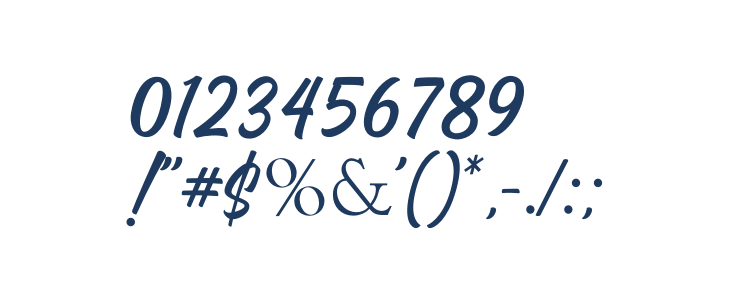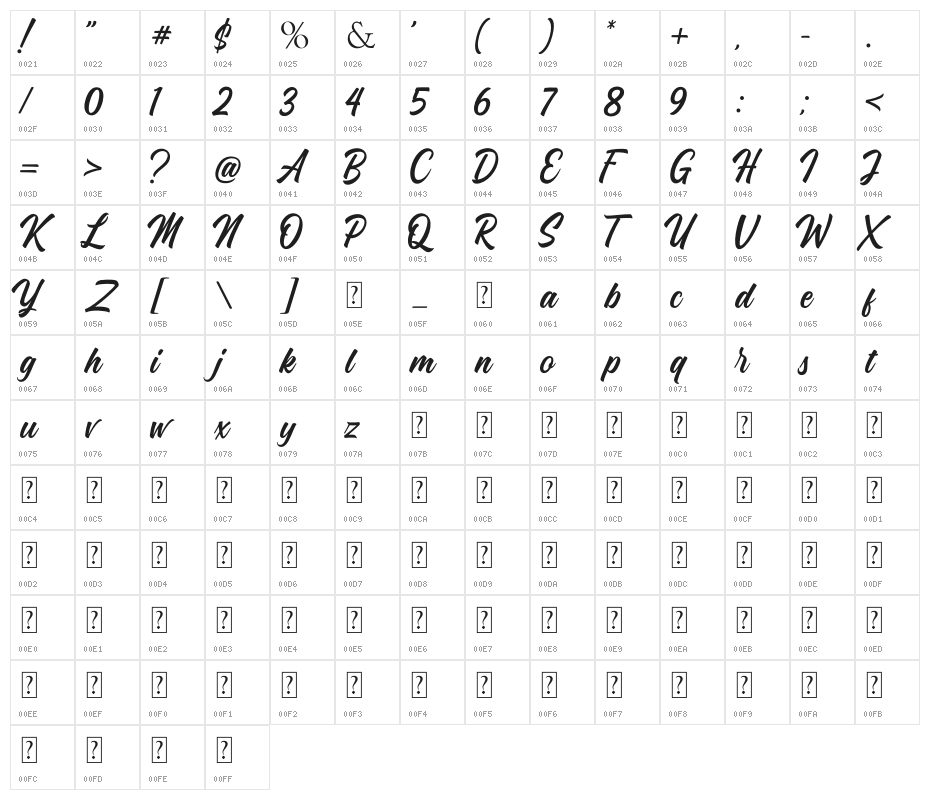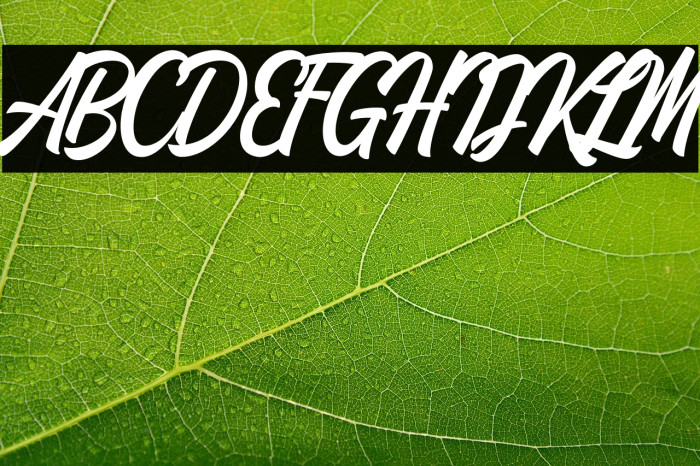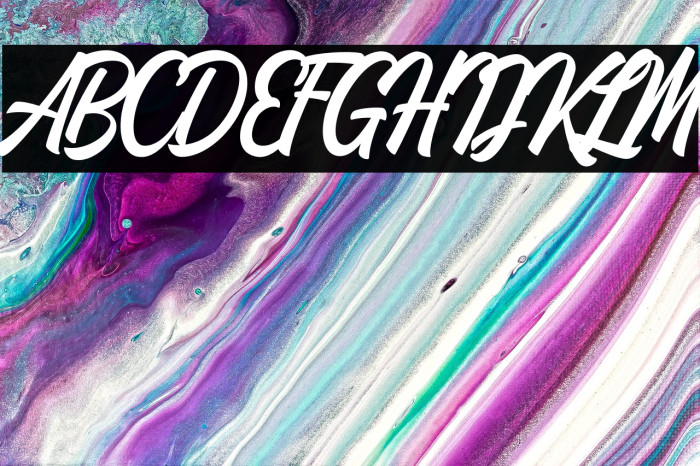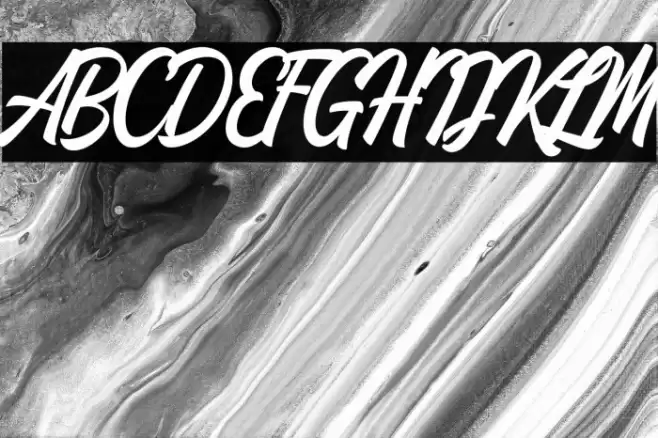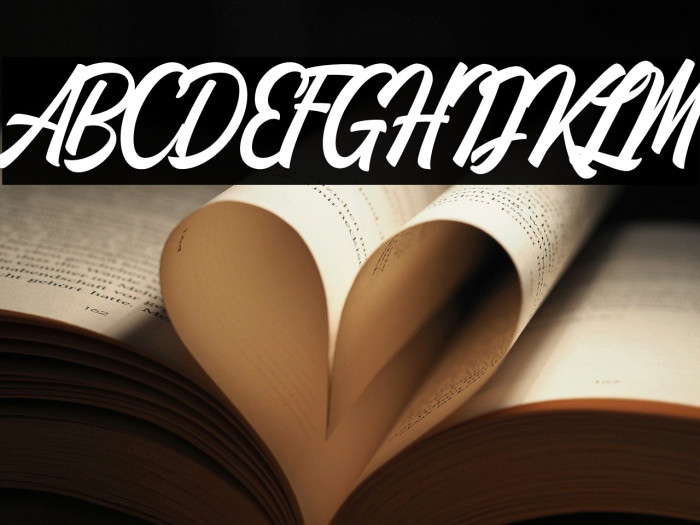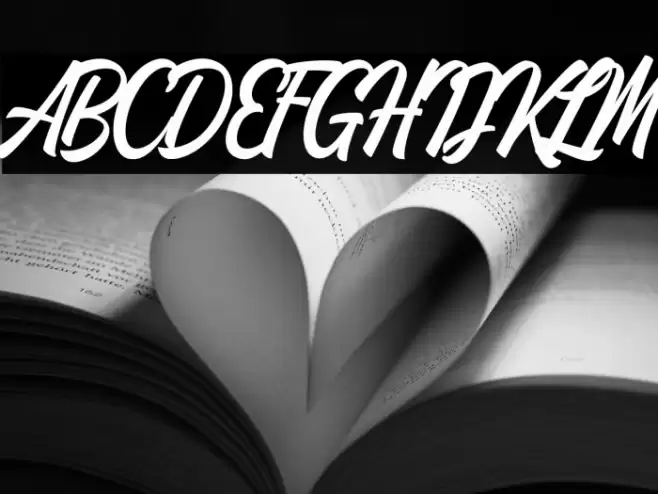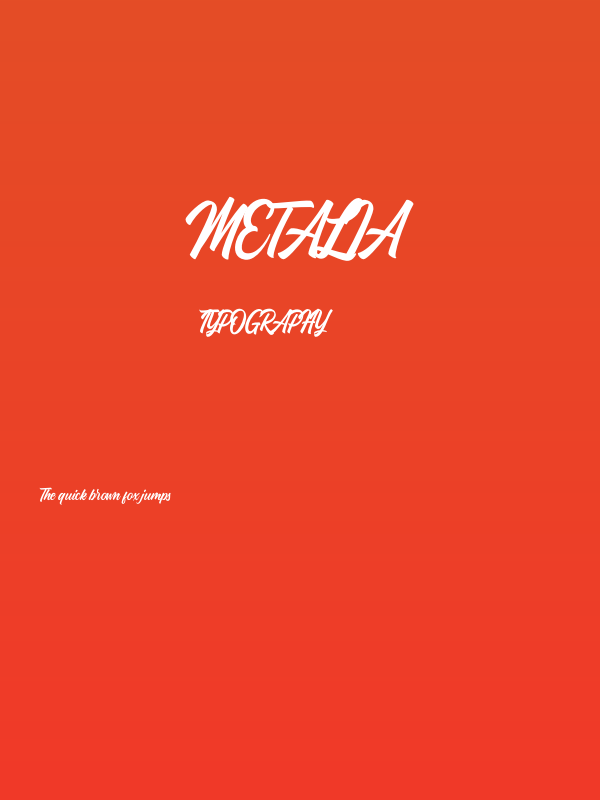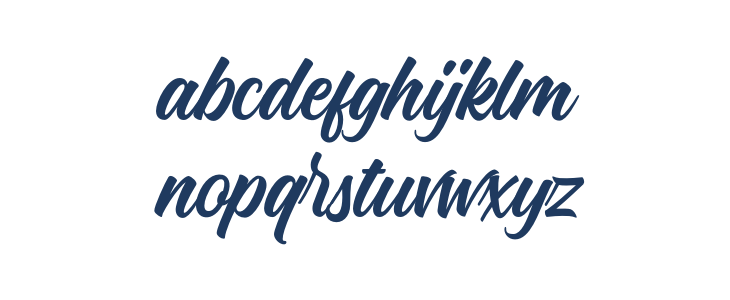
Metalia Font
Metalia Description
This font features a dynamic and flowing script style, characterized by its bold, sweeping strokes and elegant curves. The uppercase letters exhibit a sense of movement and flair, while the lowercase letters maintain a consistent rhythm and balance. The numerals are designed with a similar fluidity, ensuring cohesion across all characters. Special characters are crafted with attention to detail, complementing the overall aesthetic. This font is ideal for projects that require a touch of sophistication and energy, making it suitable for branding, invitations, and artistic designs.